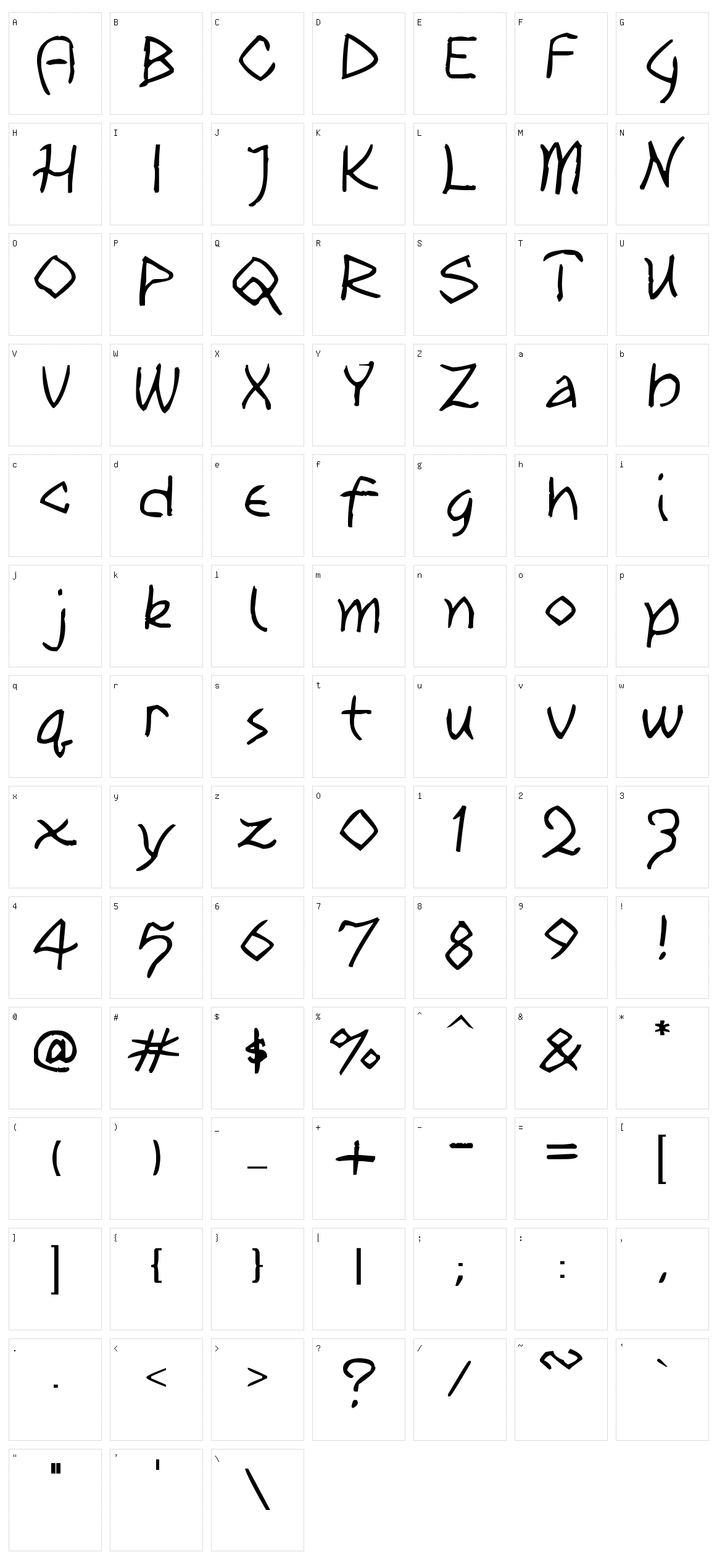
The free font Tribal is carefully designed by SWMCA Brands & Holding LLC., showcasing a thoughtful balance of creativity and usability and falls under the Script font style. When you download the ZIP file, it contains only 18.24 KB of font files, making it lightweight and quick to download. Please review the license details below to understand permitted usage and distribution rights. If license information is not available, we recommend using this font for personal projects only or contacting the author directly for commercial usage permissions.